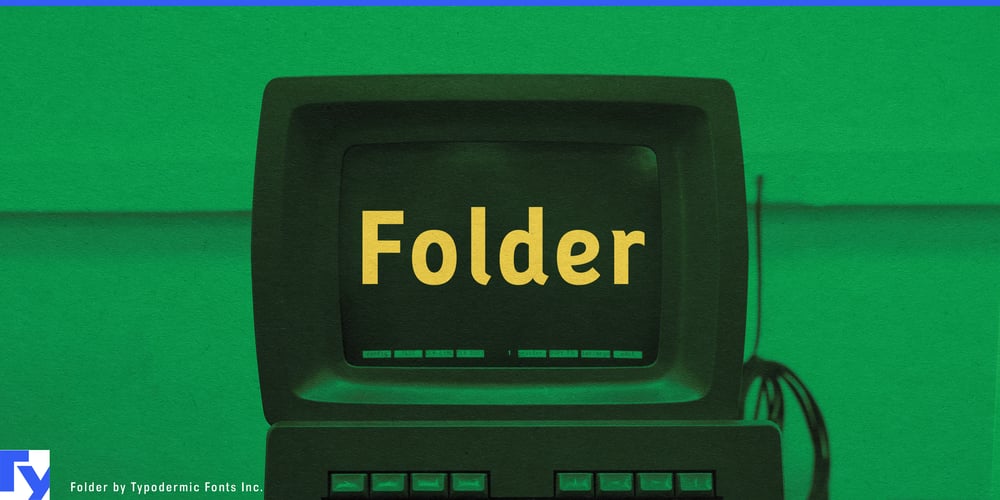
Folder Font Family was designed by Ray Larabie and published by Typodermic. Folder contains 4 styles and family package options. Introducing Folder—the technical sans-serif typeface that elevates boredom to an art form. This font is so mundane, it’s revolutionary. Designed with an unwavering commitment to legibility, Folder is the epitome of typographic monotony, perfect for those who believe excitement in design is overrated.Commissioned by the BBC for an educational broadcast, Folder takes its job so seriously it forgot to include personality. Its clean lines and crisp edges are a testament to its single-minded pursuit of clarity, making it the go-to choice for technical documents, reports, and presentations that aim to put readers to sleep—efficiently. With four alternate characters (I, J, Q, and 9), Folder offers a thrilling journey into the world of marginally different letter shapes, ensuring peak legibility across all applications. Folder’s support for OpenType “stylistic alternates” allows for customization so subtle, you might not even notice it. It’s the typographic equivalent of watching paint dry, but with more precision. This font communicates with the enthusiasm of a tax form and the charisma of a plain white wall.In a world of flashy designs, Folder stands proudly as a beacon of banality. It speaks volumes in its utter lack of flair, supporting a vast array of Latin-based European writing systems. From Afaan Oromo to Zuni, Folder ensures your message maintains its unwavering dullness across linguistic boundaries. It’s a font so universally bland, it unites cultures in shared indifference. Choose Folder when you want your text to whisper, not shout. It’s the perfect typeface for those who believe that true excitement lies in the absence of all things interesting. With Folder, your documents won’t just communicate—they’ll communicate with such stark simplicity that readers will be left in awe of its unapologetic ordinariness.Embrace the power of pedestrian design. Let Folder be the voice of your most uninspiring ideas, turning vibrant concepts into monuments of monotony. Because in a world of excess, sometimes the most radical statement is no statement at all. Get Folder now and experience the thrill of absolute typographic neutrality.